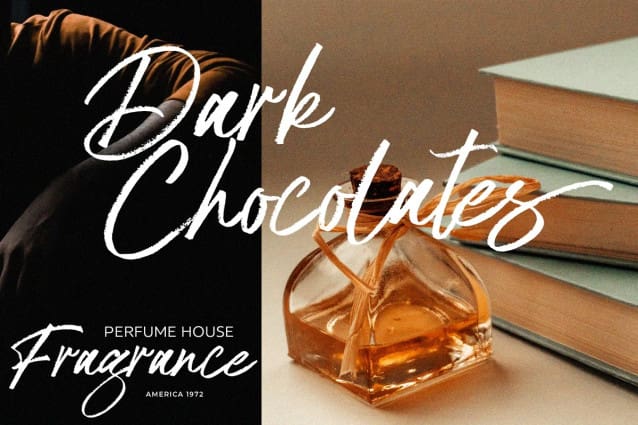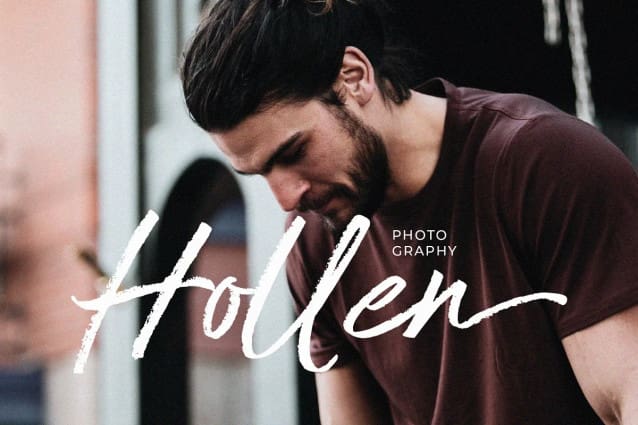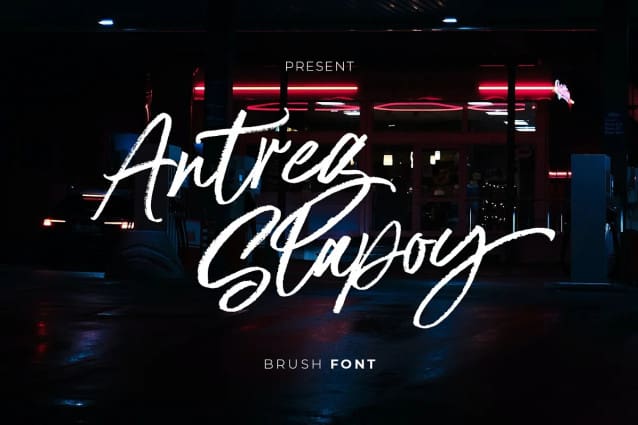
Antreg Slapoy Font
Antreg Slapoy Font – A handwritten brush font with authentic dry brush strokes drawn on paper. Perfect for logo design, poster design, social media, typography quotes over photos, book covers and packaging designs.
International support for most Western Languages is included.